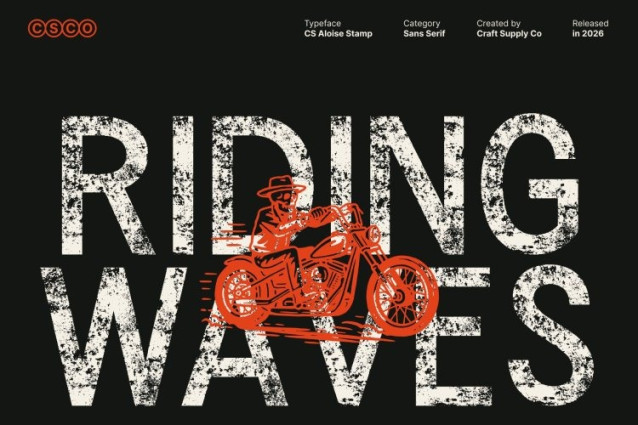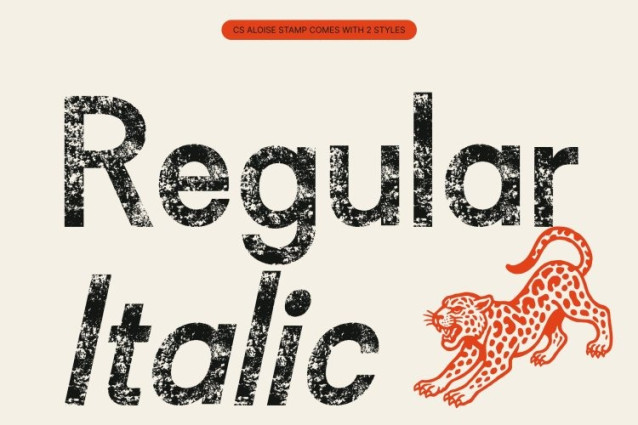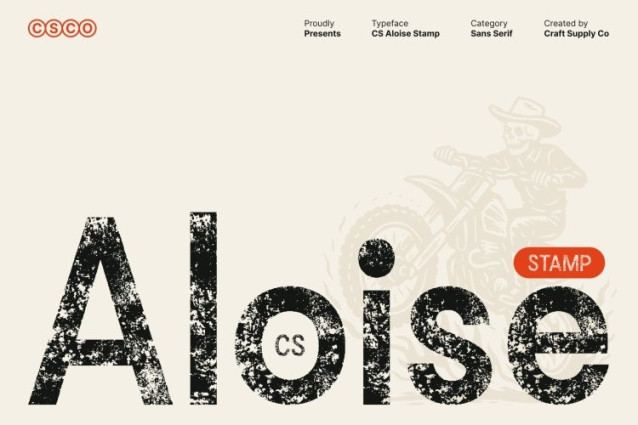
CS Aloise Stamp Font
CS Aloise Stamp Font This is a contemporary sans-serif font that combines modern precision with a subtle vintage stamp texture. Built on clean geometric foundations, its structured letterforms remain sharp and professional, while the stamped effect introduces gentle wear and organic imperfections. This balance creates a font that feels precise yet human, modern yet timeless.
Minimalist Sophistication with Artistic Texture
The minimalist design of this font is enhanced by an artistic stamped finish that adds depth and visual interest. The texture softens its sleek geometry, giving the font a tactile, handcrafted quality without sacrificing clarity. This refined contrast makes the typeface feel sophisticated, expressive, and visually engaging.
Professional Presence with an Aged Aesthetic
Perfect for corporate branding and editorial design, this font communicates reliability, confidence, and modern elegance with a hint of heritage. The subtle vintage texture evokes classic print techniques, making logos, headlines, and layouts feel more authentic and distinctive while maintaining a clean, contemporary voice.
Versatile for Digital, Print, and Branding Use
Designed to perform beautifully across digital and print applications, this font adapts effortlessly to websites, presentations, packaging, and professional publications. Its combination of structured modernity and timeless stamped character makes it an ideal choice for designers seeking a polished, future-forward font with enduring visual appeal.